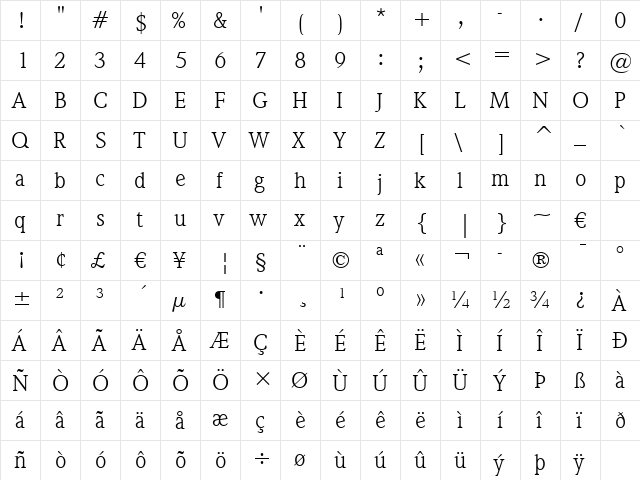
Weidemann Bk BT Book Font Preview
Weidemann Bk BT Book
Weidemann Bk BT Book Font Details
Design Context for Weidemann Bk BT Typeface
Weidemann Bk BT takes a measured approach to typography — its balanced proportions and neutral character make it a reliable workhorse for both digital and print work.